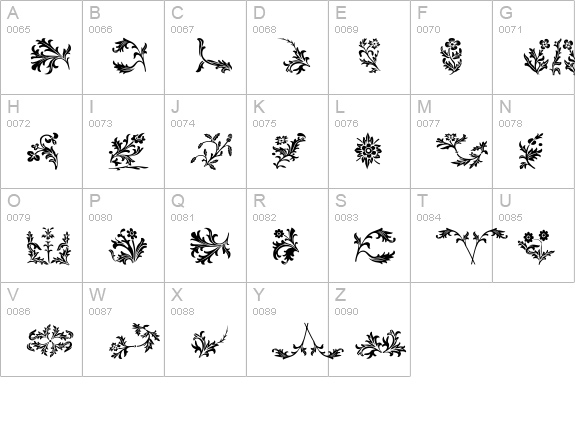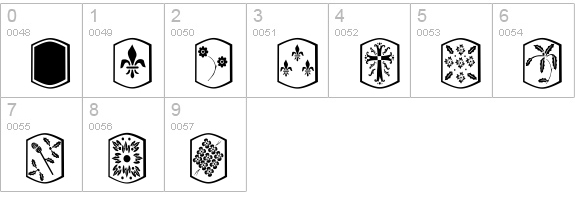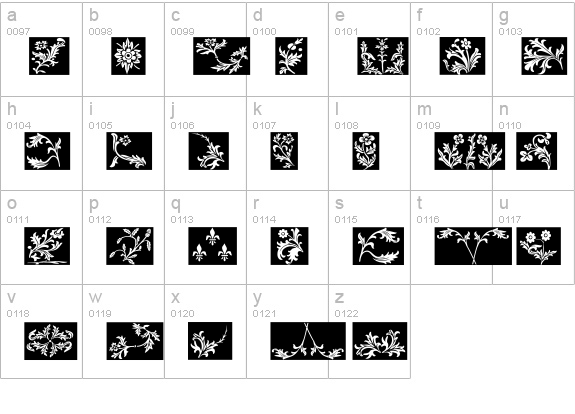
YY Old English Dingbats Italic Font Details
YY Old English Dingbats Italic is a distinctive, italic variant in the YY typeface family \xE2\x80\x94 well suited to design and typography projects.
The YY Old English Dingbats Italic font is a unique and ornate typeface that brings a touch of elegance and sophistication to any design project. Featuring intricate and decorative symbols inspired by traditional Old English typography, this font is perfect for adding a vintage and regal flair to your work. What sets YY Old English Dingbats Italic font apart is not only its exquisite design, but also the fact that it is available for free download at FontsMarket.com. This means that you can easily enhance your projects with this stunning font without any cost involved. Whether you're working on invitations, posters, logos, or any other creative endeavor, YY Old English Dingbats Italic font is sure to make a lasting impression. Download it today and elevate your designs with its timeless charm and sophistication.